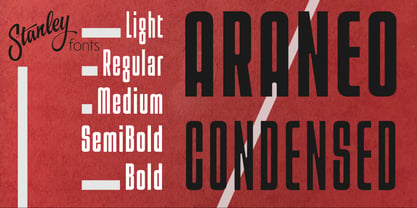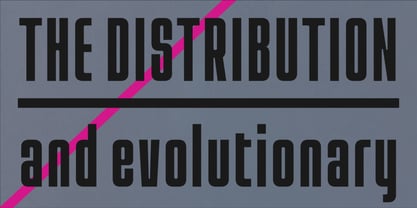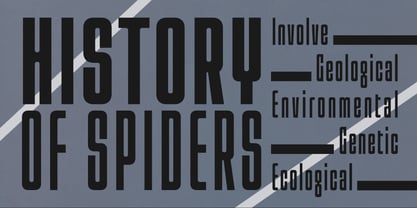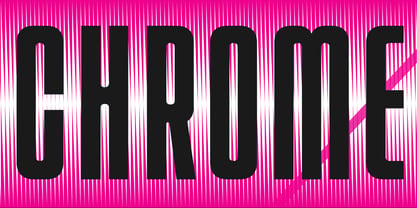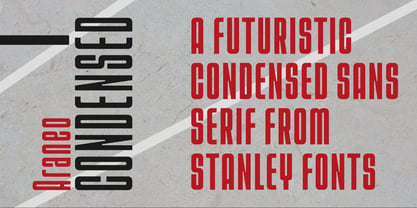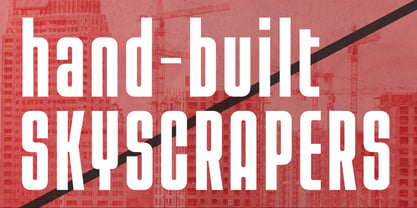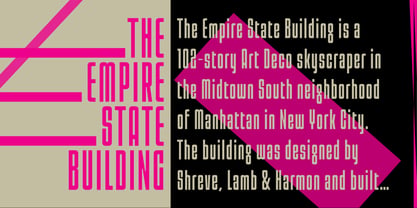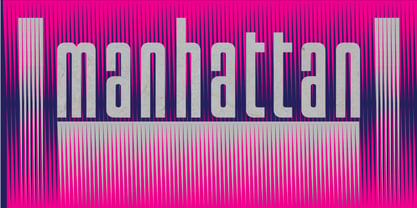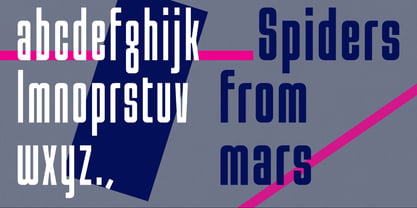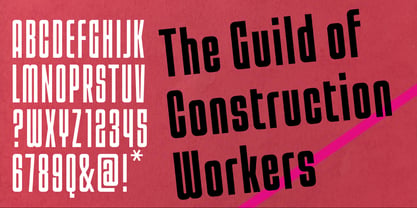
Araneo Condensed
by Stanley fonts
The Araneo Condensed Font Family was designed by Dominic Stanley and published by Stanley fonts. Araneo Condensed contains 5 styles and family package options. More about this family
A FUTURISTIC RETRO STYLE CONDENSED DISPLAY FONT FROM STANLEY FONTS. ARANEO CONDENSED IS A WARM, ROUNDED MODULAR FONT WITH A 1960S VIBE. USE IT IN LARGE OR SMALL SIZES FOR A LINEAR TEXTURE. AVAILABLE IN FIVE CONDENSED WEIGHTS. Araneo Condensed is a futuristic condensed sans serif font family. Inspired by 1960s Euro-style fonts from Italy, this is a classy and confident modular display font for tall headlines and bylines. The curved corners evoke a bygone era. The rounded long tubes of whitespace within the letters combine with consistent letter-spacing to create pleasing patterns in and around your words. Araneo Condensed comes in 5 weights and extended latin support. There will be more styles to come and anyone who buys the family now will be entitled to free updates when they are added. Use Araneo Condensed to make your product feel stylish and unique. Email the designer for a free trial sample.
Designers: Dominic Stanley
Foundry: Stanley fonts